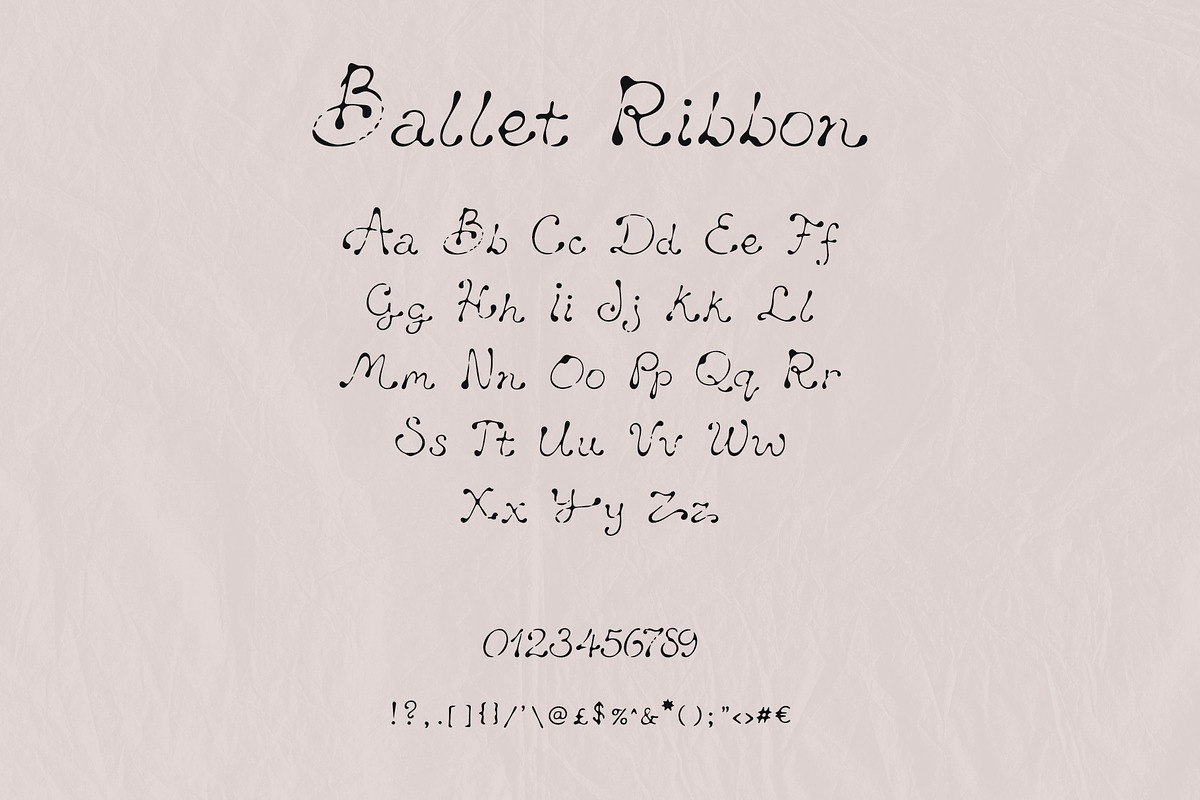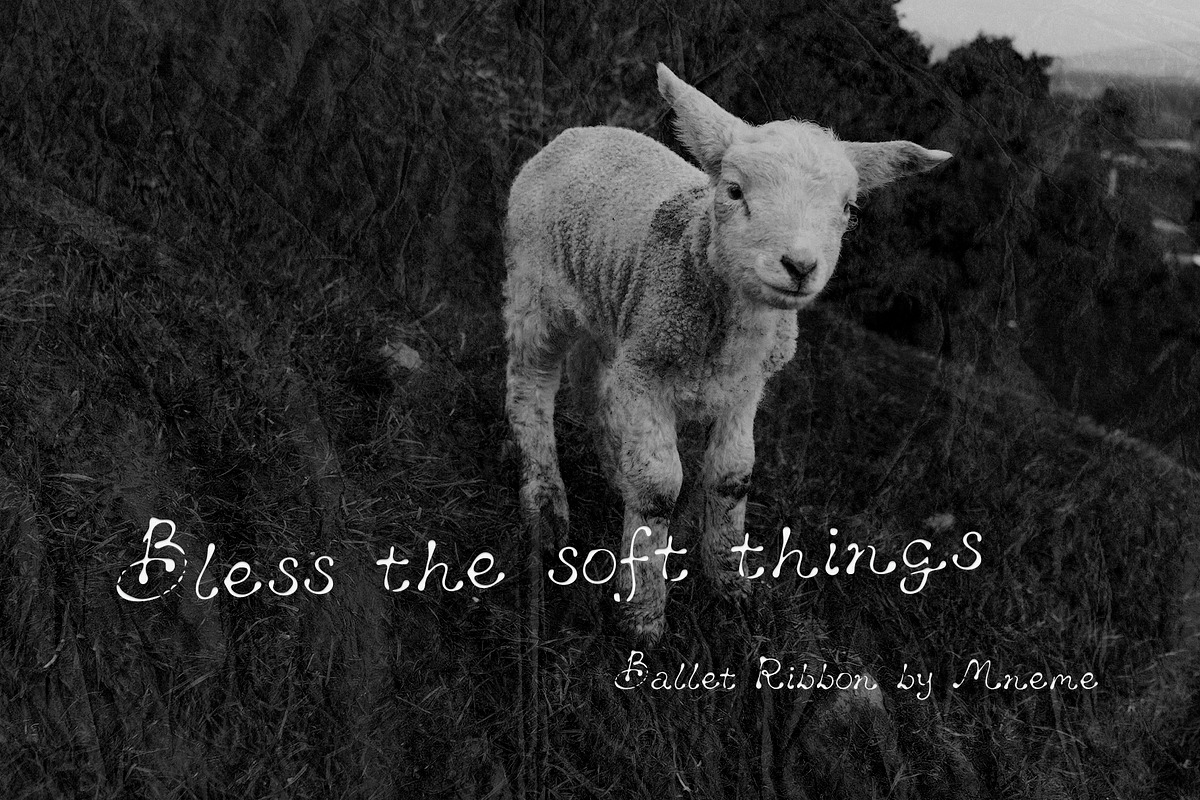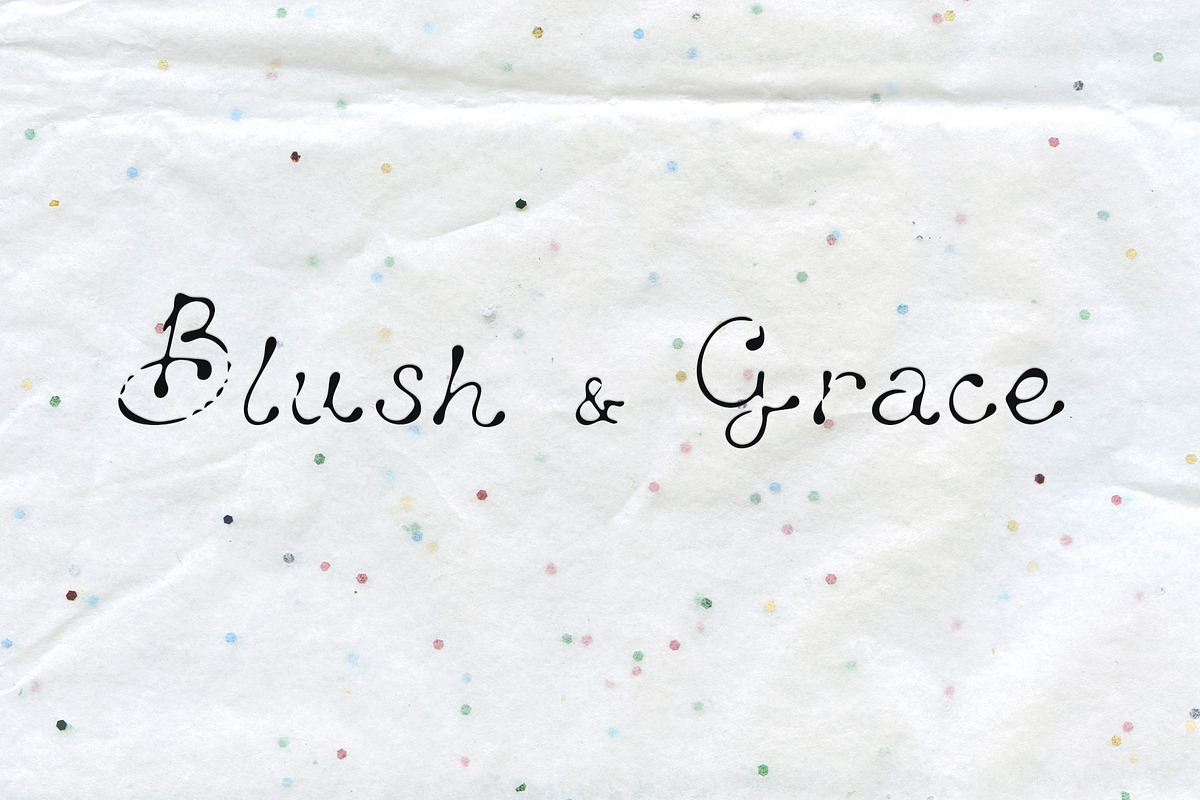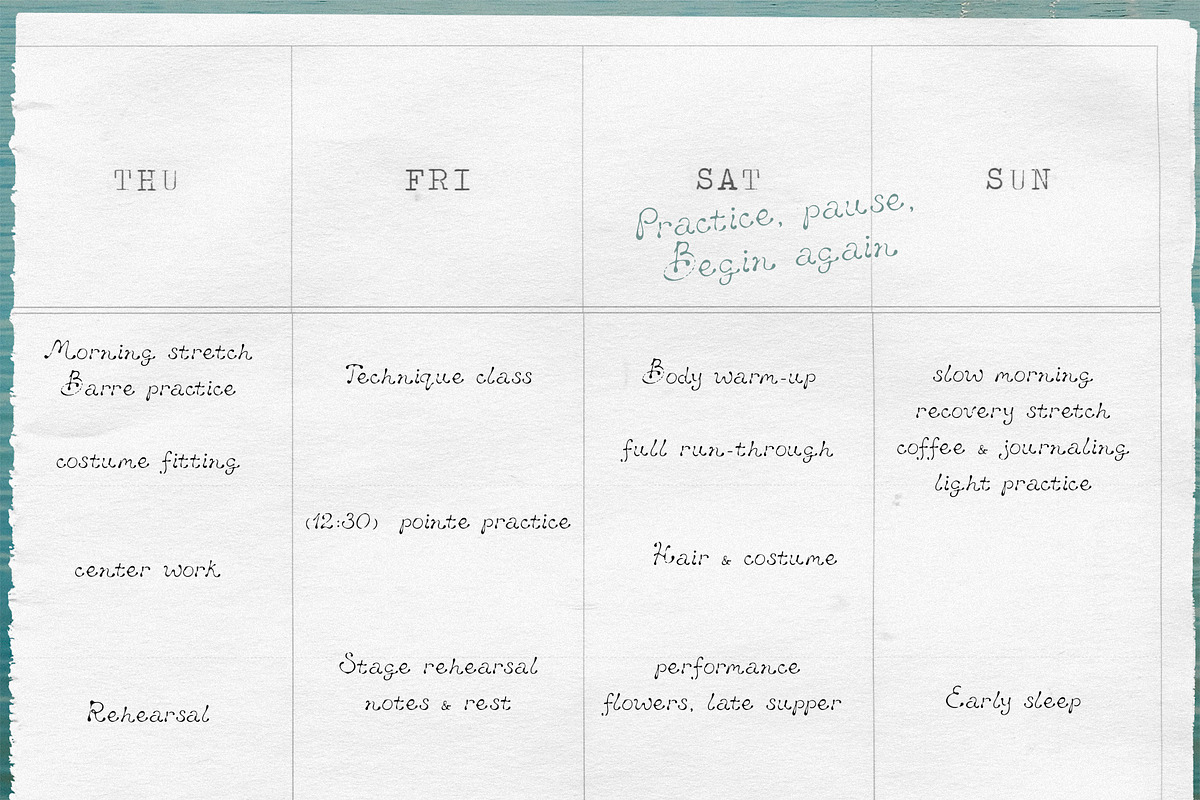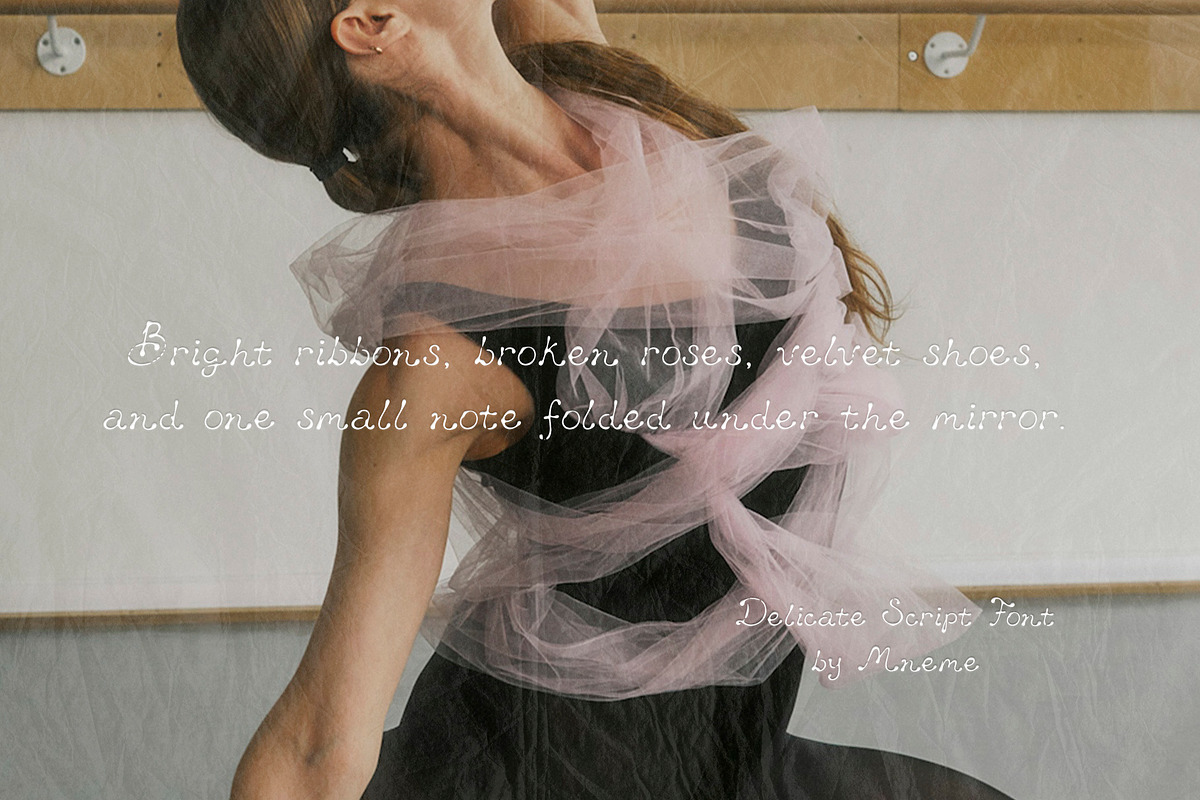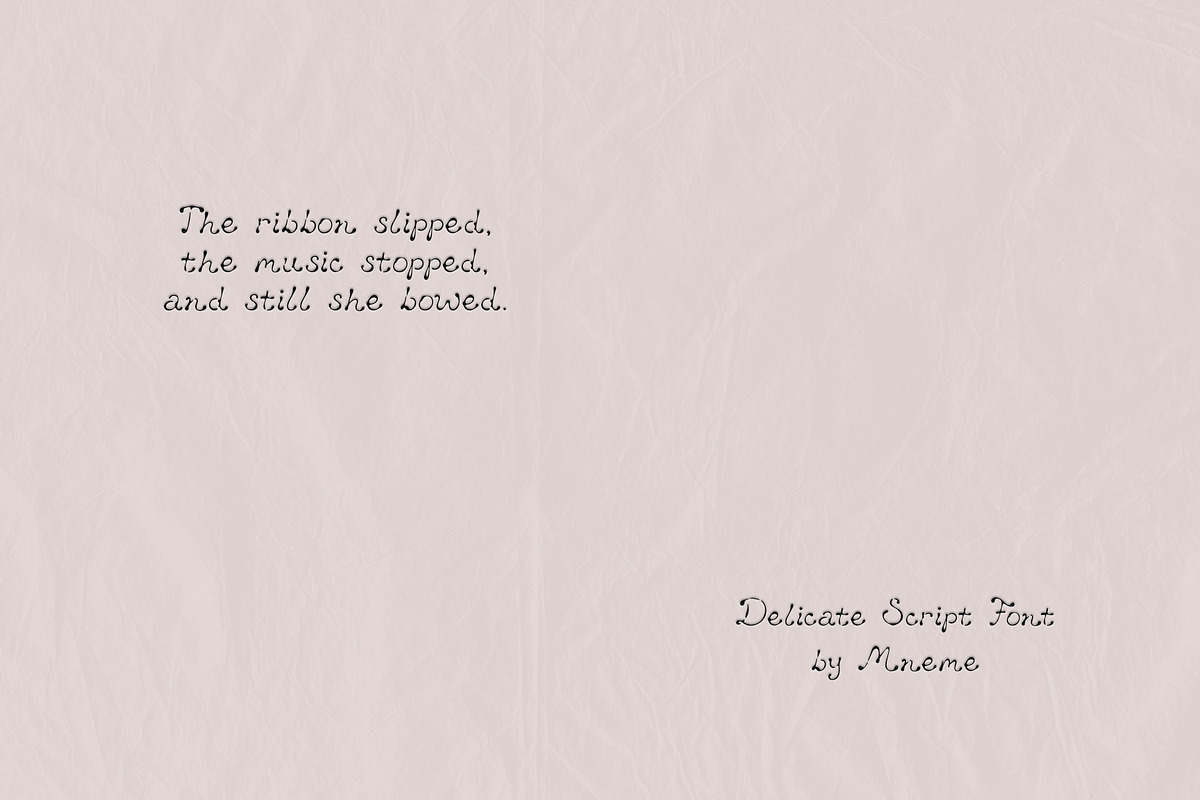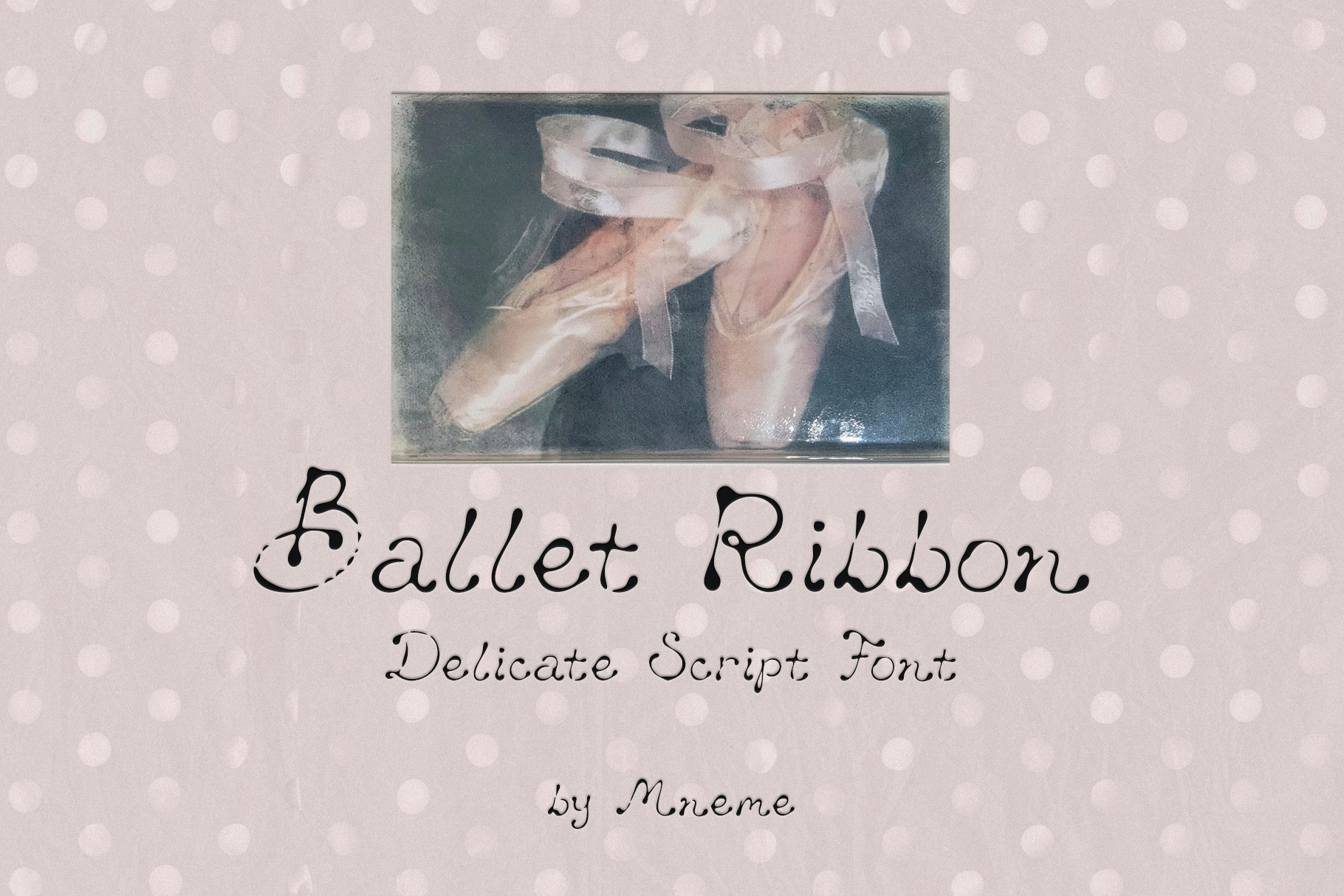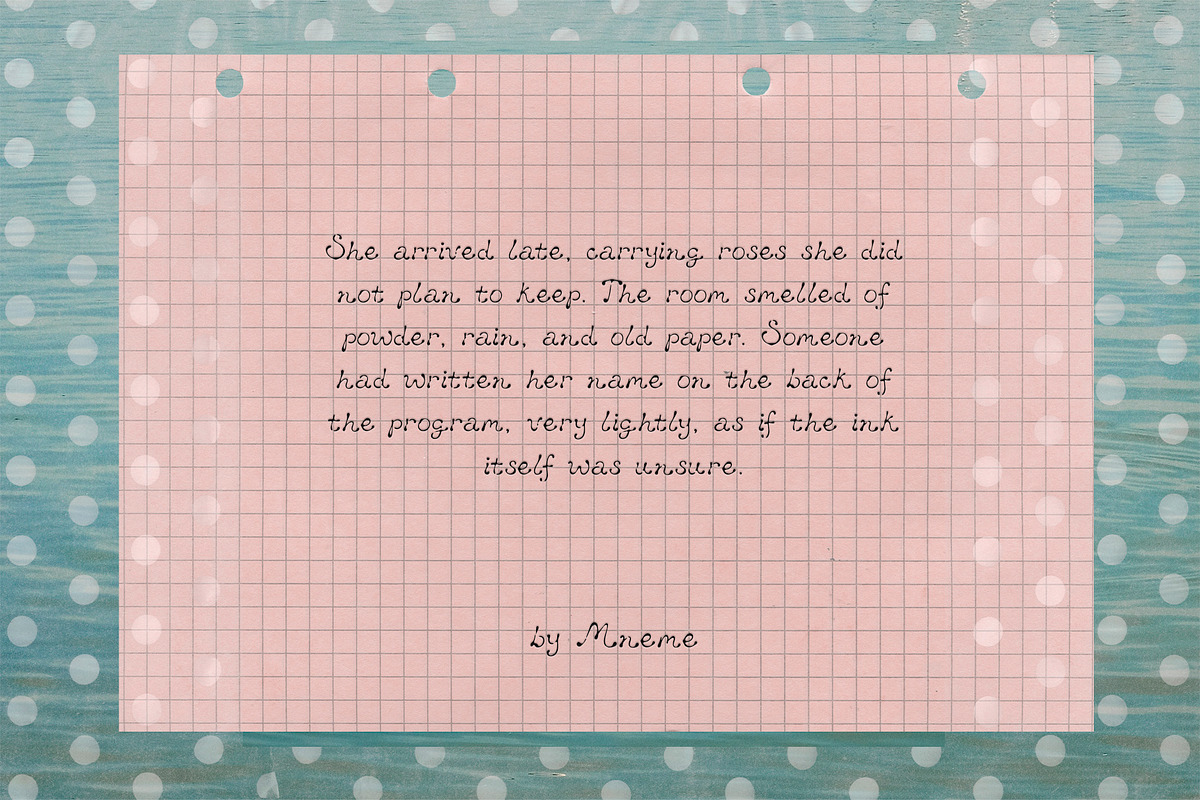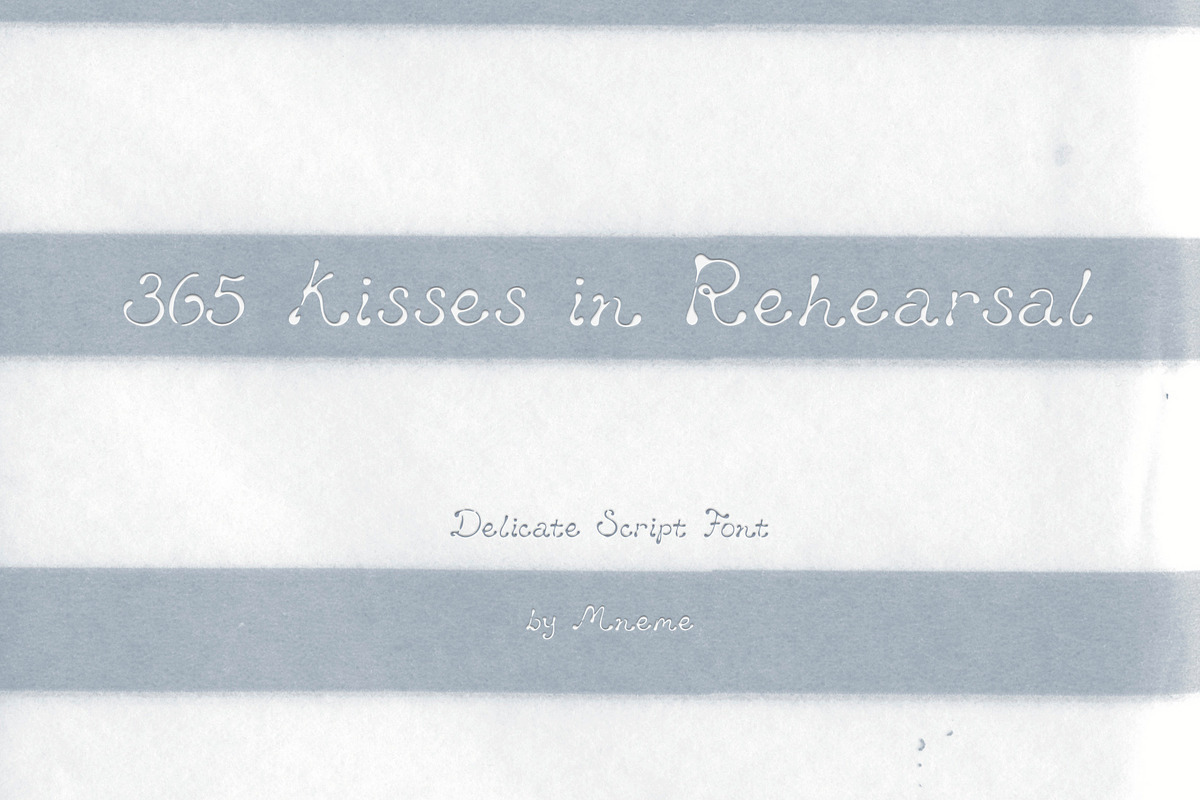
Ballet Ribbon: Handwritten Font
Ballet Ribbon is a delicate handwritten font with thin ink lines, uneven loops, and a quiet little tremor in its rhythm. It feels like a note found between pages, a backstage schedule, a love letter written too late, or the kind of handwriting that was never trying to behave perfectly.
The font has a fragile, romantic movement: narrow letters, soft irregular curves, loose connections, and small imperfect details that make it feel personal rather than polished. It is gentle, but not sugary; feminine, but not too sweet; elegant, but with a little scratch under the surface.
Ballet Ribbon works beautifully for branding, logos, packaging, product labels, wedding stationery, invitations, handwritten quotes, editorial layouts, social media graphics, moodboards, blog imagery, boutique visuals, and any design that needs a thin personal note with atmosphere.